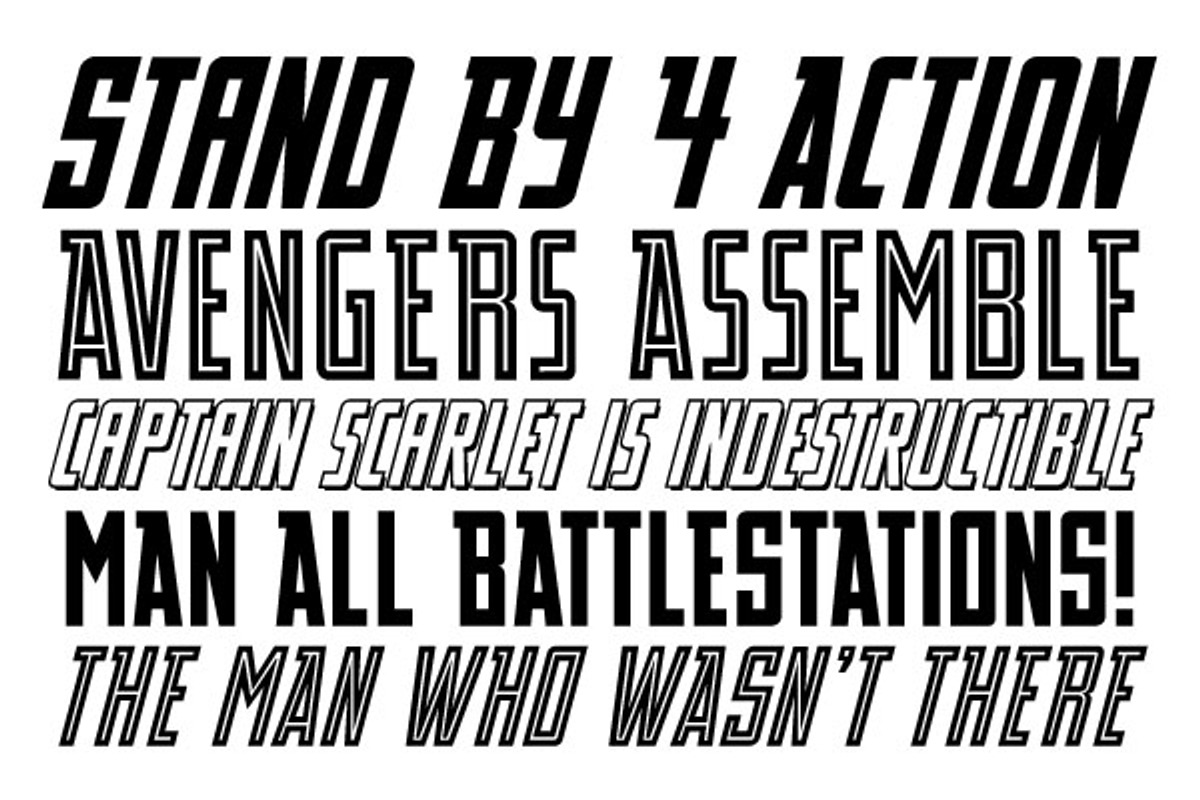
Stand By 4 Action
Stand By 4 Action by Comicraft Fonts is a font selected for branding, posters, packaging, typography.
Why Stand By 4 Action is worth a look
Stand By 4 Action by Comicraft Fonts fits naturally into Branding, posters, packaging, typography.